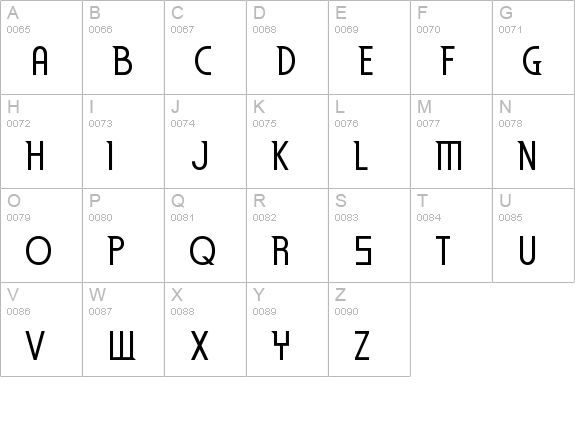
Eden Mills font is a visually captivating typeface that effortlessly combines elegance with a touch of whimsy. Created with meticulous attention to detail, this font exudes a sense of charm and sophistication, making it perfect for a wide range of design projects. With its delicate curves and graceful lines, Eden Mills font adds a sense of grace and refinement to any text. Whether used for branding, invitations, or editorial designs, this font instantly elevates the visual aesthetic and creates a memorable impression. One of the most appealing aspects of Eden Mills font is that it is completely free. Yes, you heard it right. This stunning typeface is freely available to download at FontsMarket.com. With just a few clicks, designers can access this gem and unleash their creativity without any cost. As a freely available font, Eden Mills allows designers to experiment and explore its versatility without any limits. Its extensive character set encompasses a variety of alternate glyphs, ligatures, and stylistic variations, providing endless possibilities to customize and personalize each design. Whether you're a professional graphic designer or an aspiring creative enthusiast, Eden Mills font is a must-have in your font collection. Its versatility and beauty will surely inspire and enhance your design projects, making them stand out from the crowd. So, why wait? Visit FontsMarket.com today and download Eden Mills font for free. Experience the magic of this enchanting typeface and elevate your designs to new heights. Embrace the freedom to create with Eden Mills font and let your imagination soar.